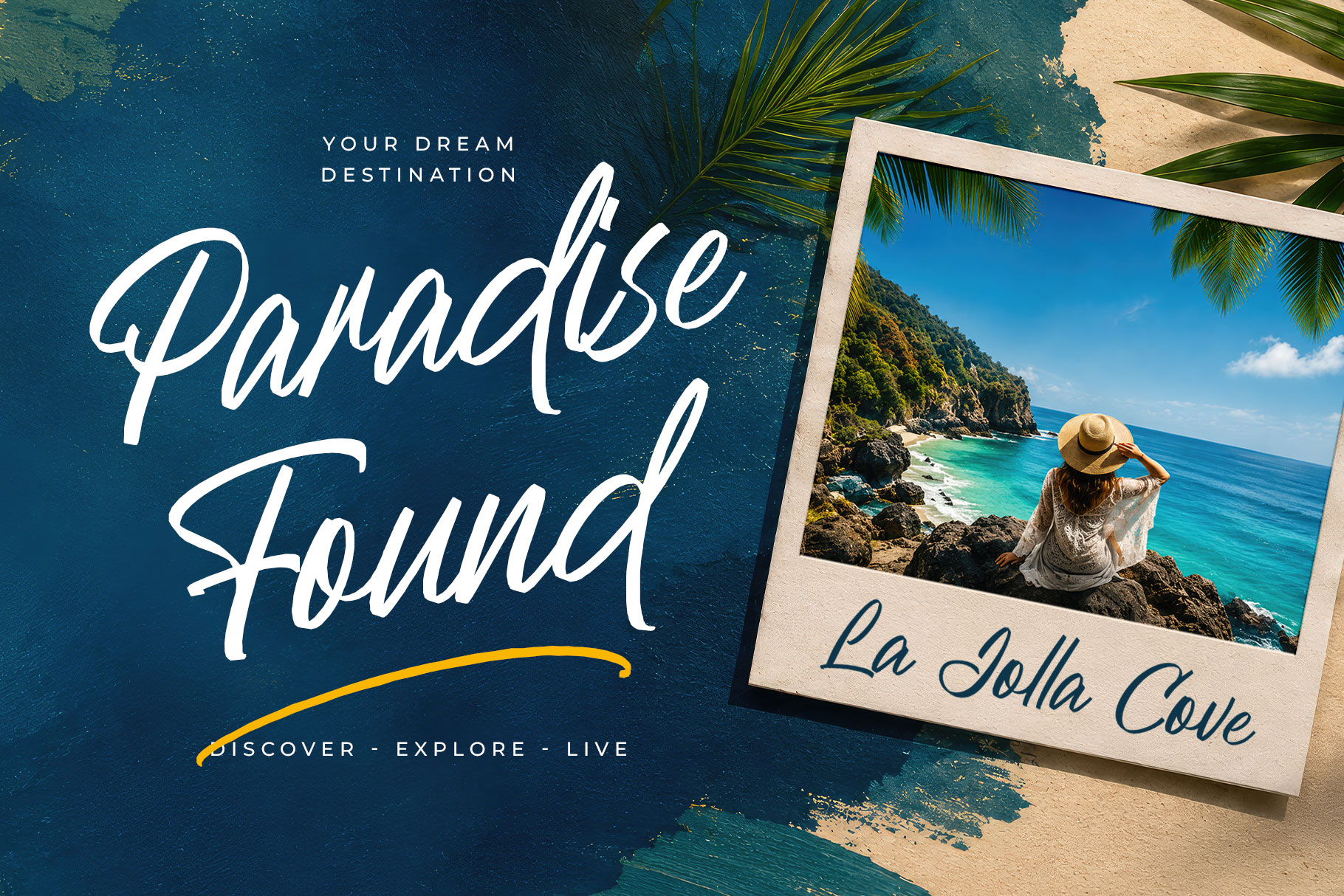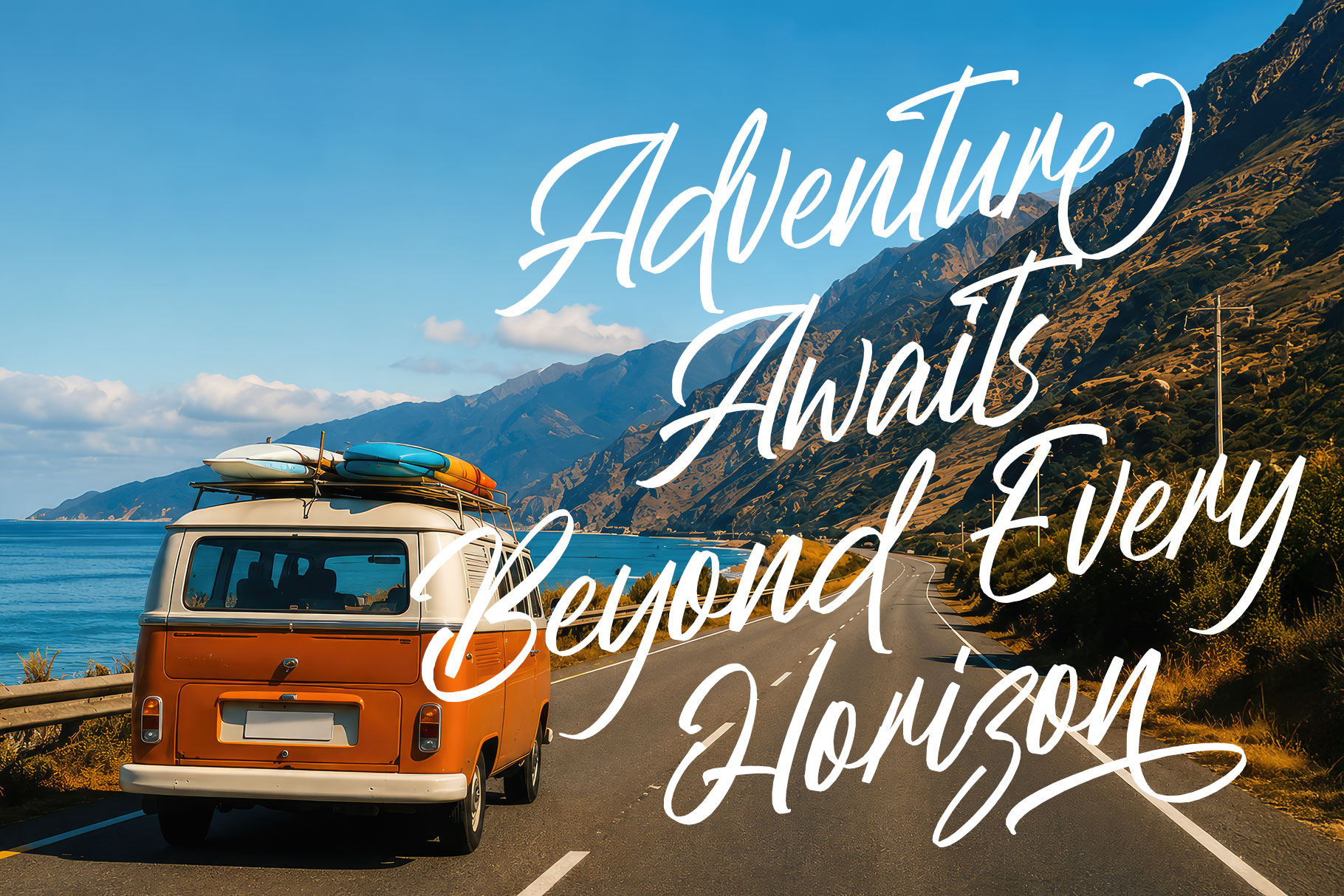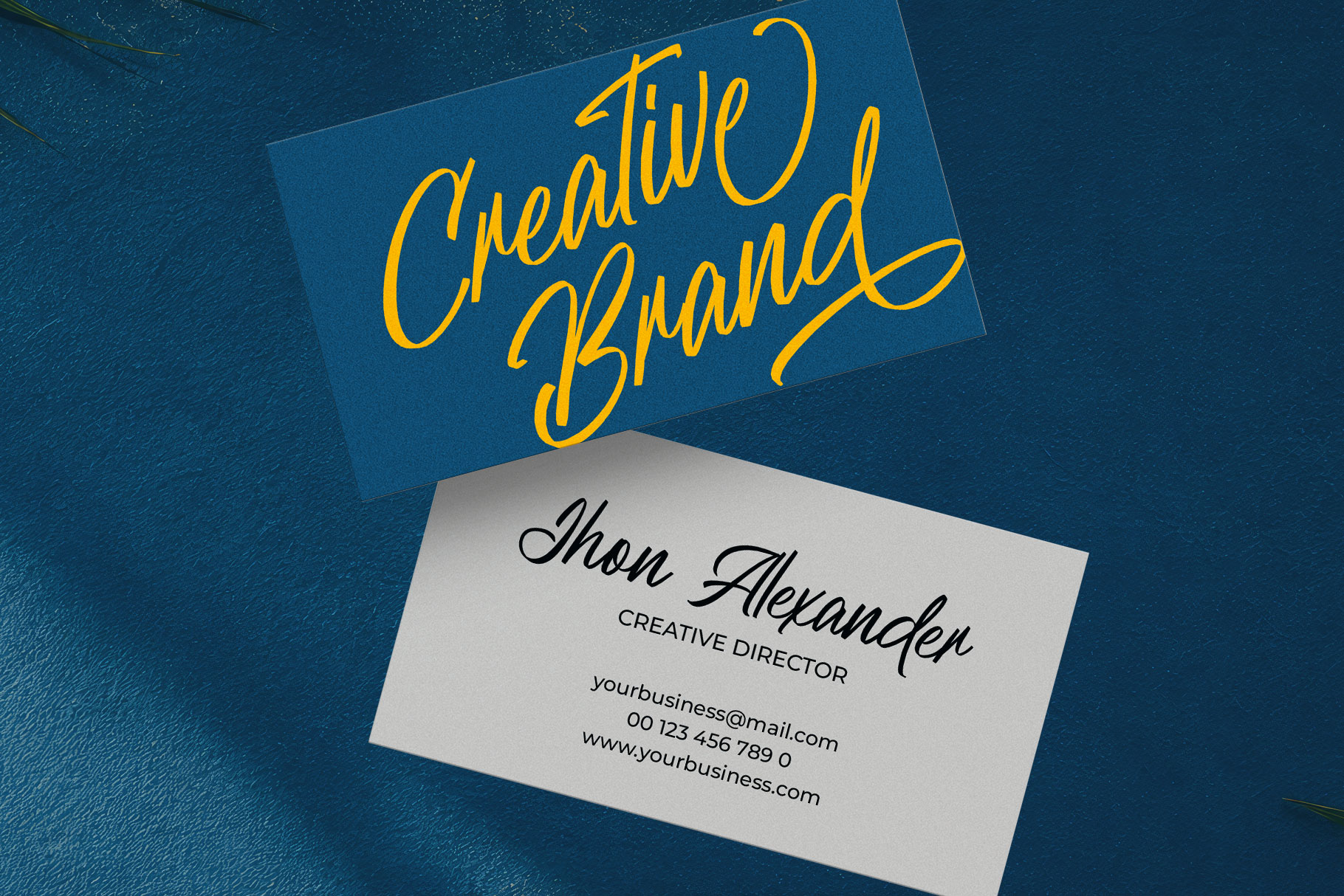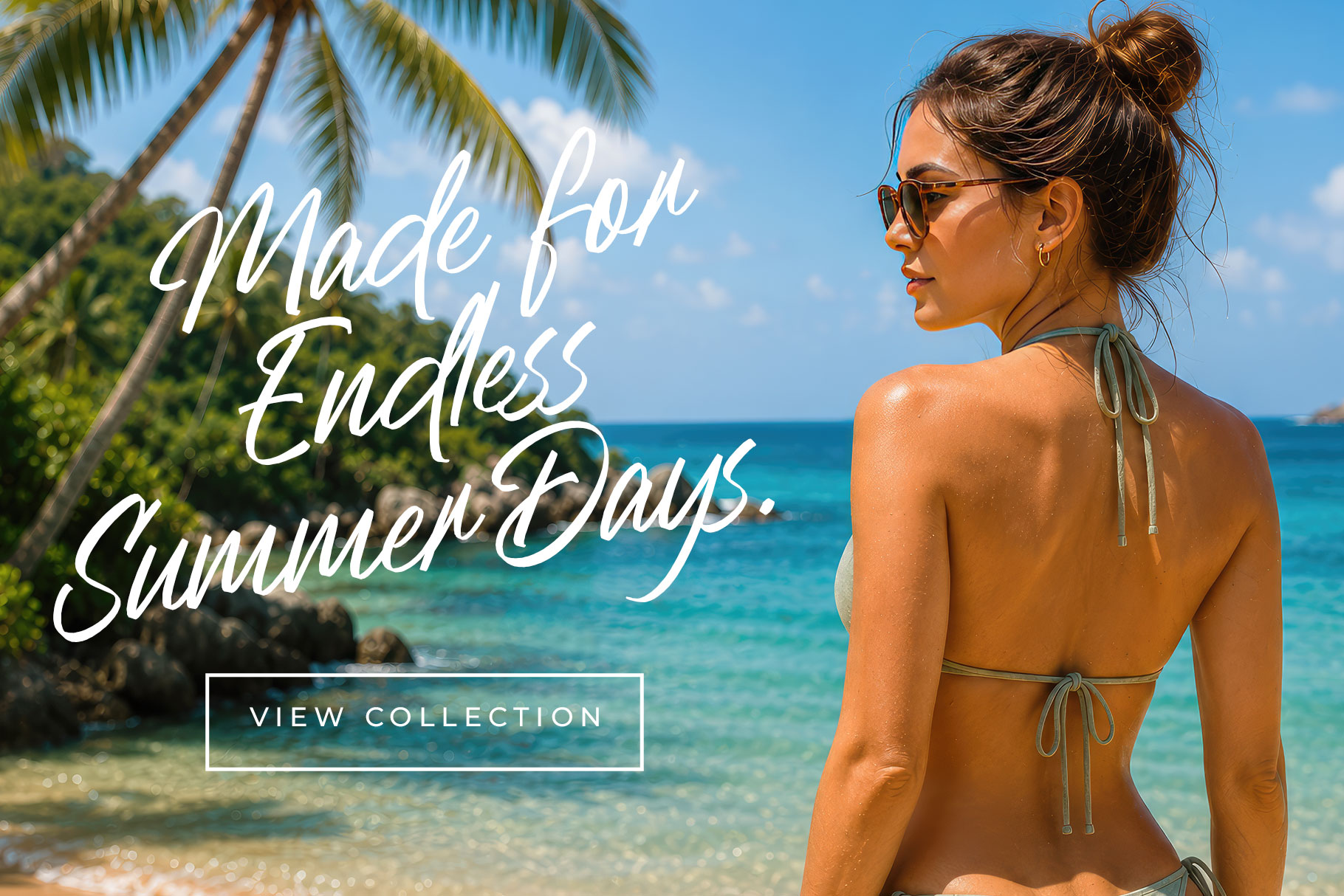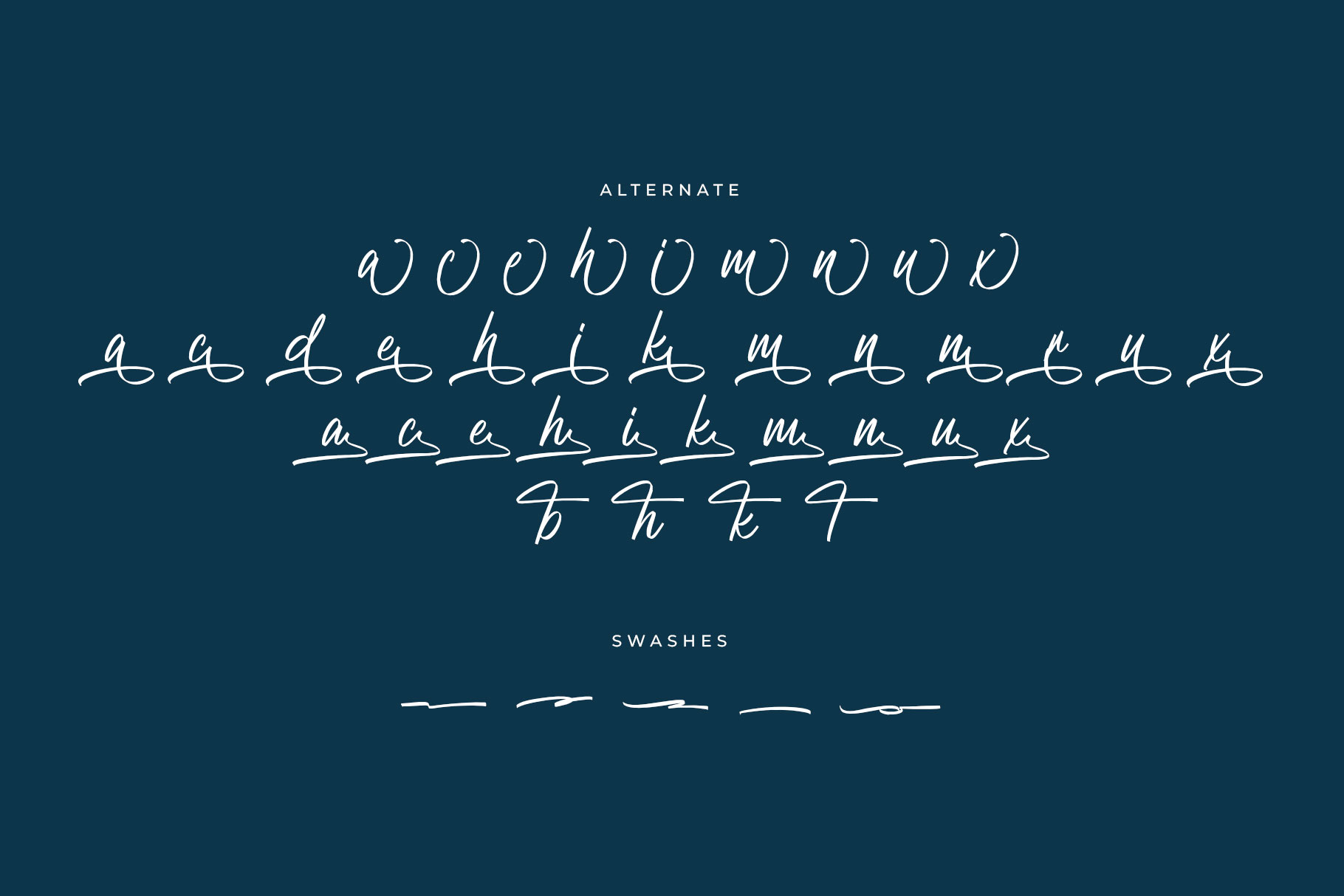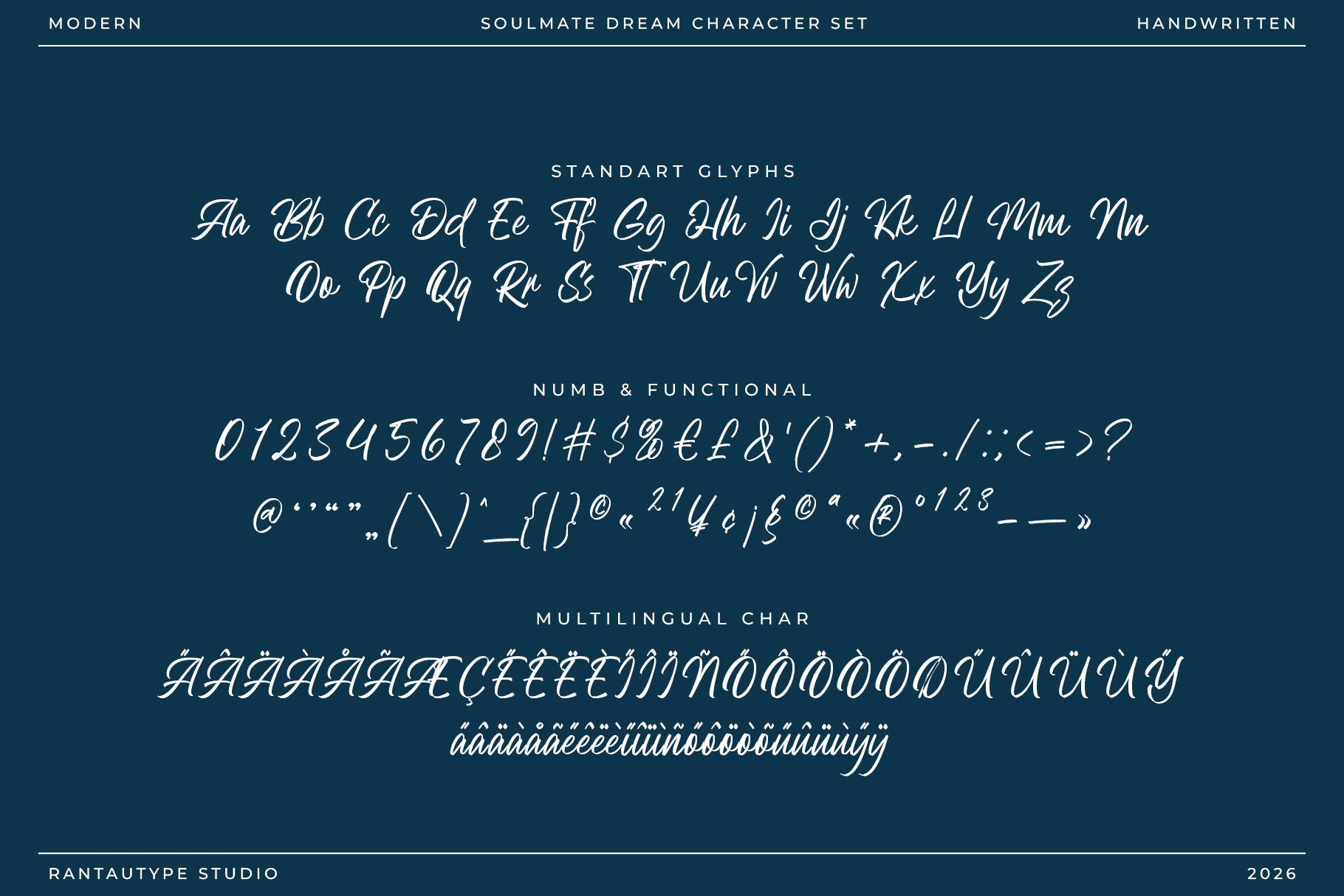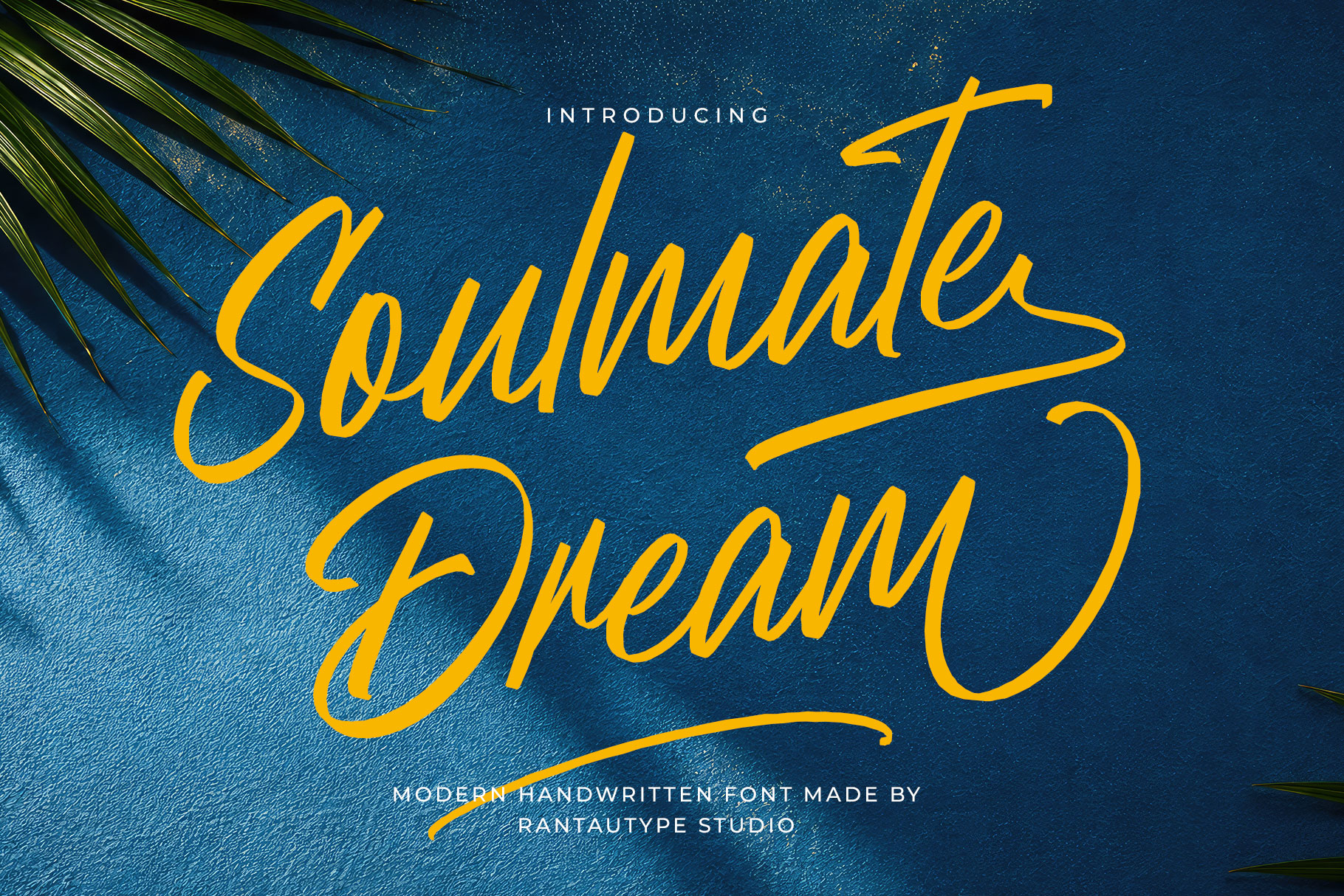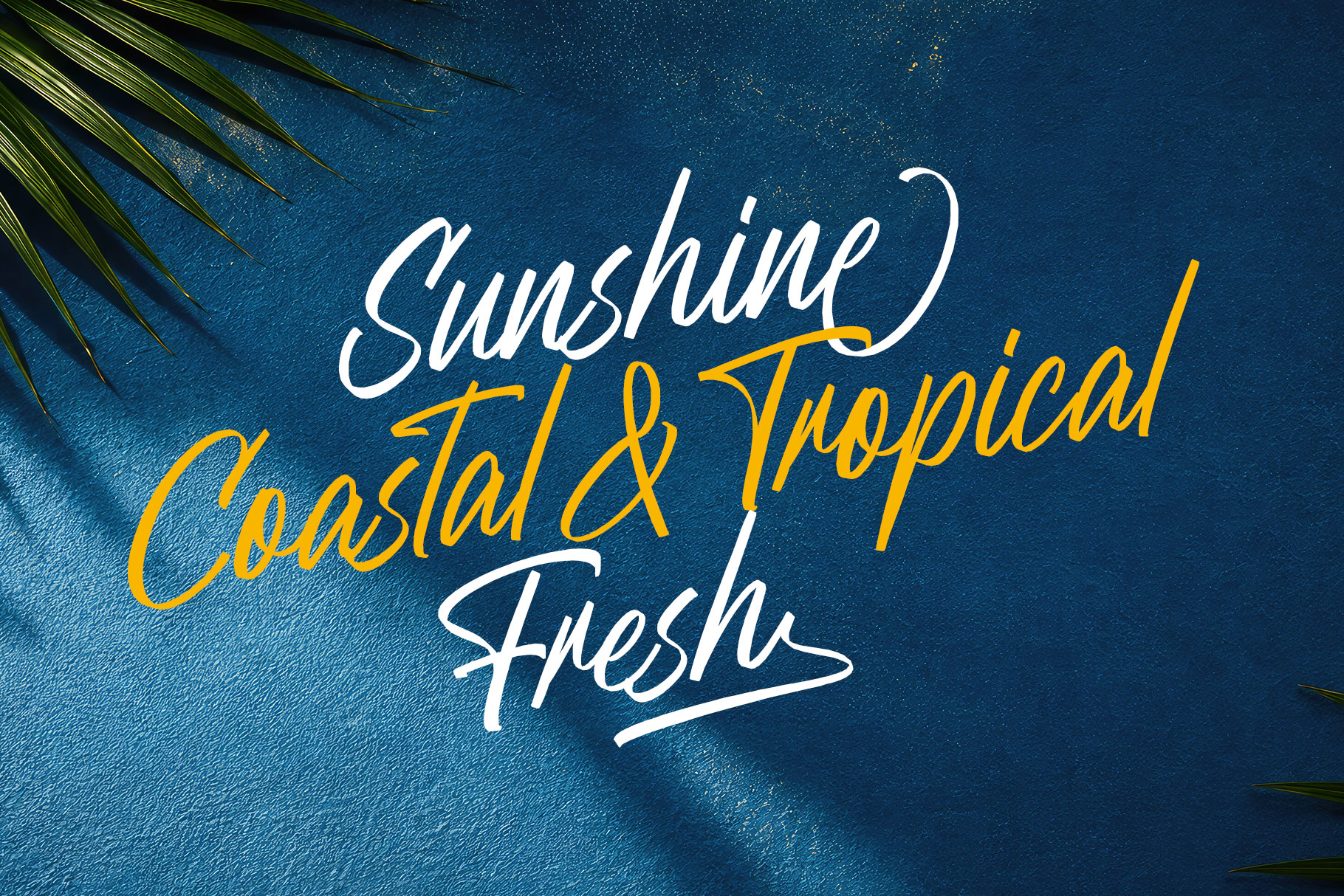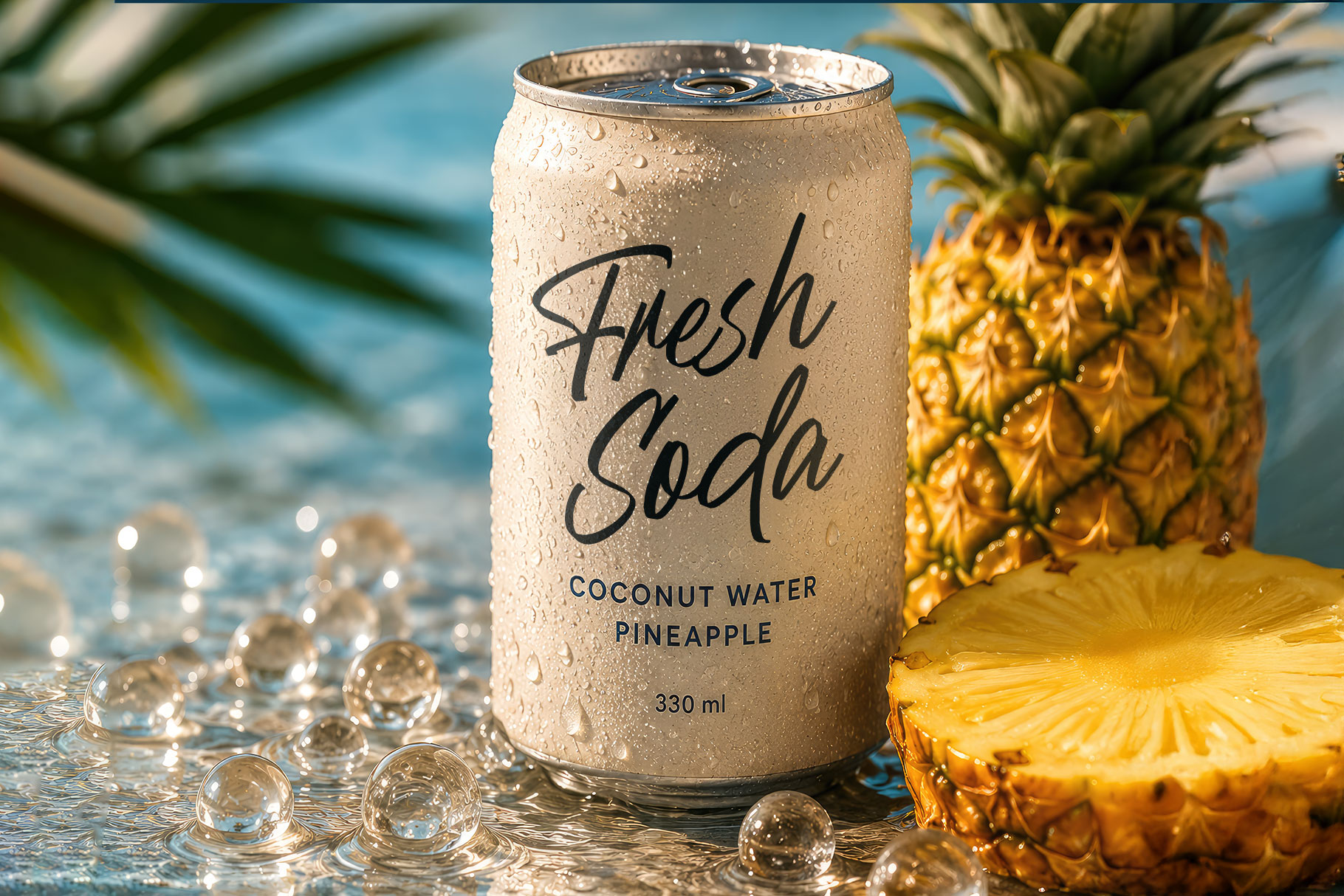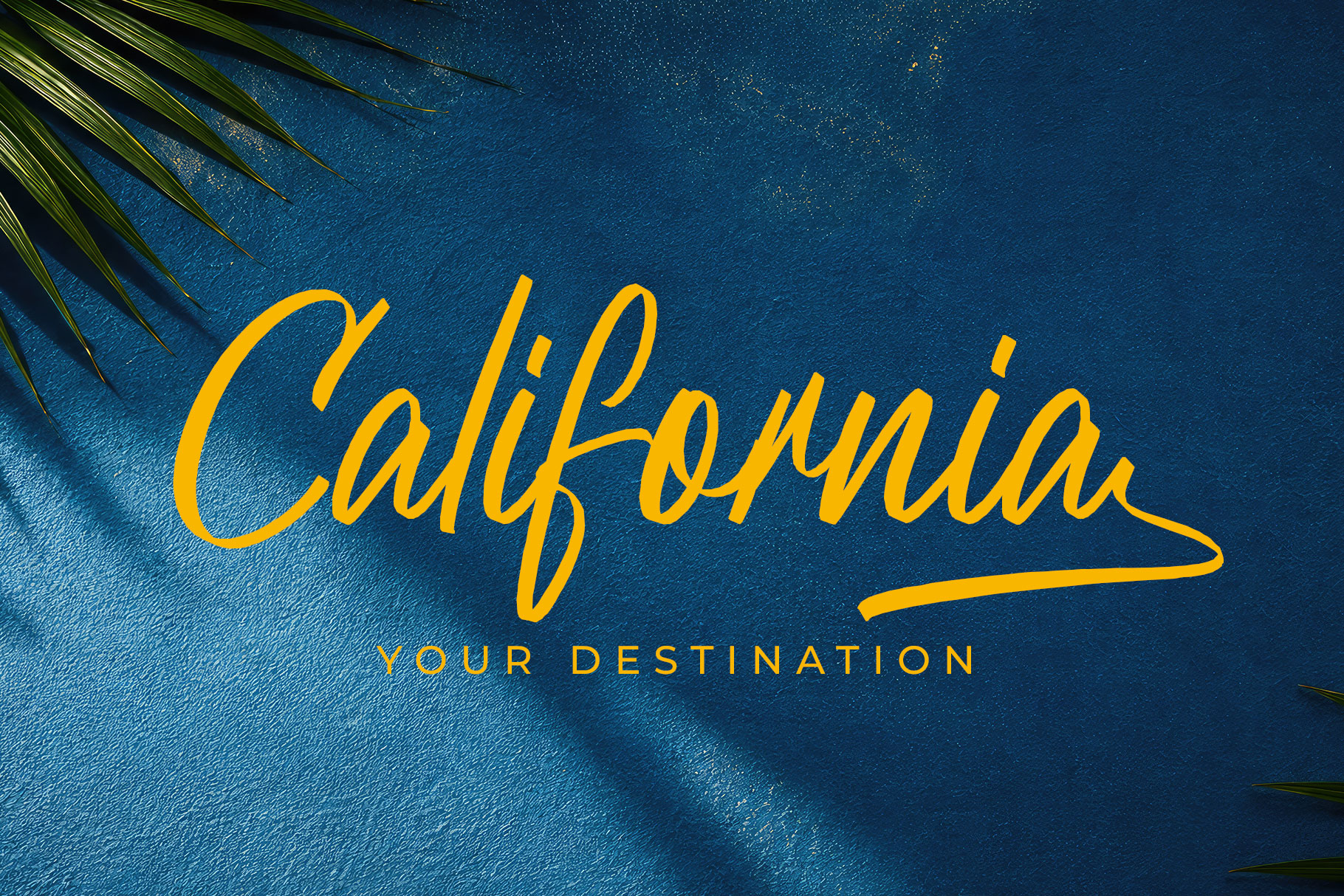
Soulmate Dream is a modern handwritten font that beautifully blends contemporary elegance with effortless authenticity. Designed with fluid strokes and a natural signature-inspired style, this typeface captures the feeling of personal expression while maintaining a refined and professional appearance. Its smooth curves, elongated letterforms, and dynamic movement create a sense of freedom, warmth, and sophistication that instantly draws attention.
Soulmate Dream is a perfectly choice for any creative endeavor, creating, modern, lifestyle design such as logotype, title, cover, branding, invitations, wedding designs, display and magazine, social media posts, advertisements, printed quotes, product packaging, corporate brand, product designs, labels, photography, watermarks, special events and any other project with modern touch.
Soulmate Dream Modern Handwritten Font